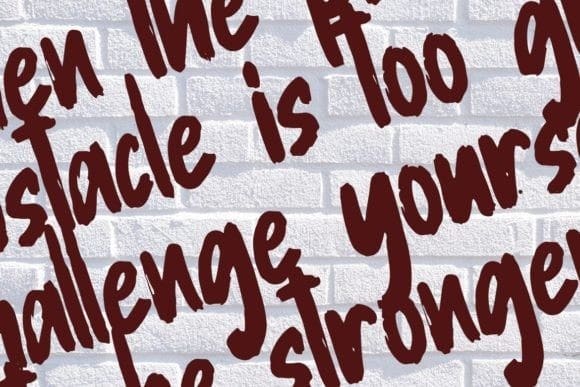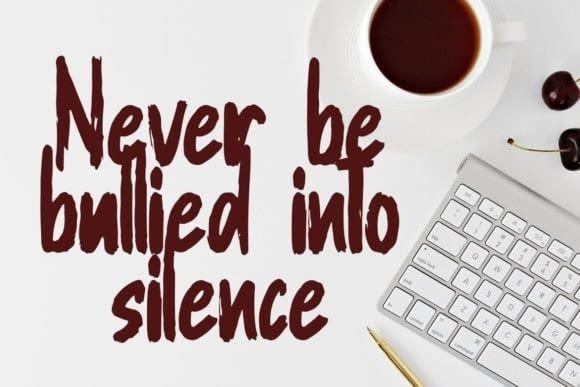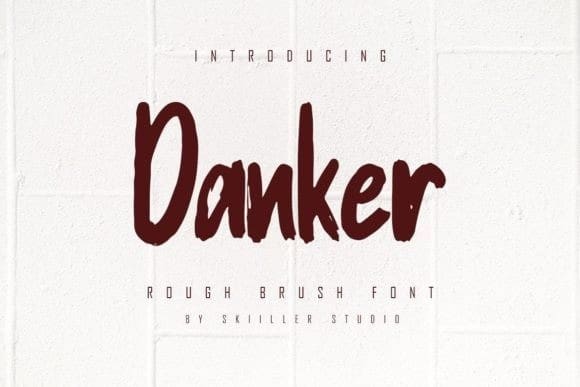
Danker Brush Font
Danker Brush Font is a textured brush display font with paint scratches or original brush. The original stroke of this font is suitable for film or commercial needs that can support your business or company.